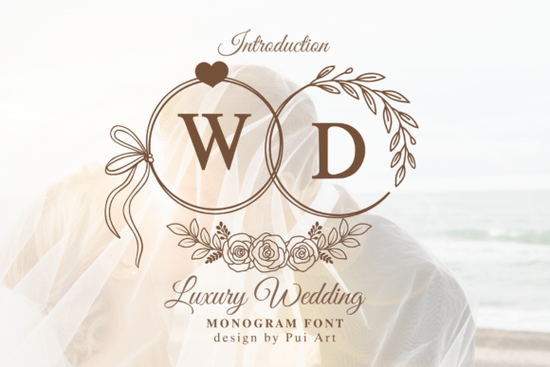
If you're looking for a refined, romantic touch to elevate your wedding designs, the Luxury Wedding Monogram Font is a thoughtful choice. This elegant A–Z alphabet blends soft curves with delicate details heart accents, ribbon bows, and botanical wreaths that bring a timeless feel to any project. Whether you're crafting invitations, designing bridal stationery, or making personalized gifts, this font adds a graceful, minimalist sophistication that feels both modern and classic.
What makes this monogram font special?
Unlike generic fonts, the Luxury Wedding Monogram stands out through its intentional design. Each letter is thoughtfully crafted with subtle flourishes like a tiny heart nestled in the corner of an "A" or a delicate bow tied around a "C" that add charm without overwhelming the layout. The inclusion of natural elements such as vines and floral wreaths gives it a soft, organic rhythm perfect for couples who love nature-inspired weddings.
Where can you use this font?
This versatile set fits a wide range of creative needs:
- Wedding invitations – Use it for RSVPs, save-the-dates, or seating charts to give your event a cohesive, luxurious look.
- Bridal decor – Perfect for table numbers, signage, or even custom wall art.
- Engagement and anniversary gifts – Turn initials into engraved keepsakes or framed prints.
- Crafting with Cricut or Silhouette – The detailed strokes are well-suited for cutting machines, especially when paired with premium cardstock or vinyl.
You’ll find that this font pairs well with simpler typefaces, too. For example, combining it with a clean sans-serif font (like Montserrat or Lato) creates balance letting the monogram shine while keeping text readable.
How does it compare to other decorative fonts?
While many decorative fonts lean heavily on ornate details, this one strikes a nice middle ground: romantic but not overly busy. If you’ve used the Kawaii Heartsy Font, you’ll notice a similar playful spirit but here, the mood is more serene and refined. For something bolder and more structured, you might consider the Sharp Font, though it lacks the softness these wedding-themed letters offer.
Those who love vintage romance may appreciate how closely this matches the style of RO Monogram Font, but with added floral motifs and a lighter weight. Meanwhile, if you’re drawn to botanical elegance, the Beauty Lilly Font shares a similar floral flair, though it’s less focused on monograms and more on full-word layouts.
Why designers and small businesses love it
It’s also great for clients who want something unique but not extreme. Many brides appreciate a monogram that feels personal, meaningful, and tasteful not flashy or trendy. This font delivers exactly that.